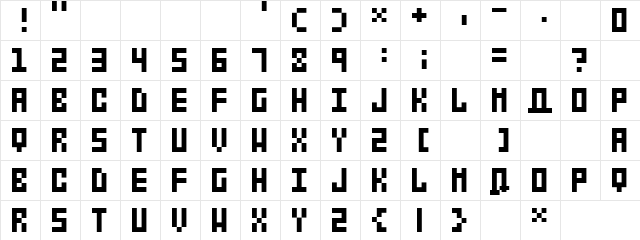
xenon2 Regular
Design Context for xenon2 Typeface
xenon2 takes a measured approach to typography — its balanced proportions and neutral character make it a reliable workhorse for both digital and print work.
Pro Tip: Pair xenon2 with a font of contrasting weight or personality to build a more expressive typographic hierarchy.